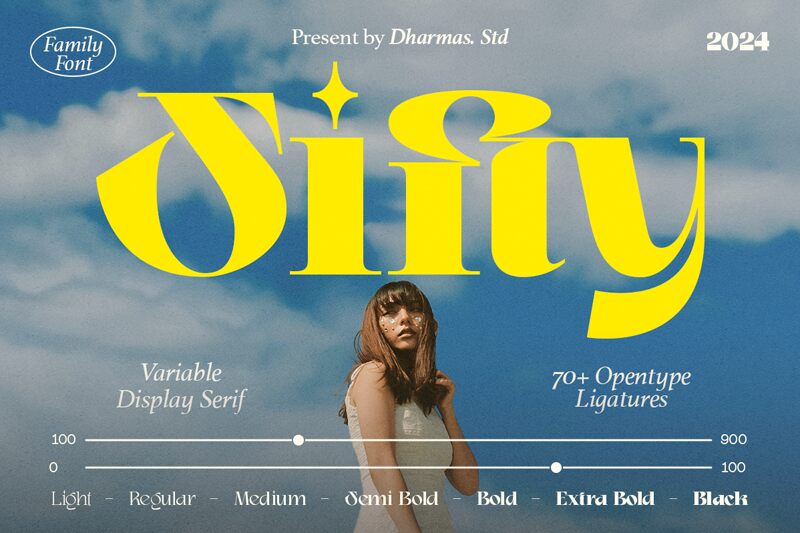
Sifty DEMO Black
The Sifty Black font, belonging to  the Sifty family designed by Dharmas Studio, is a strong retro typeface that mesmerizes both the eyes and thoughts. The widely distinctive outlines have an adequate stroke thickness that makes it dominant thus suitable for headlines, banners and logos where attention should be drawn.
Sifty Black has a pleasant nostalgic feel that reminds one of old fashioned signs. It looks modern unlike others in this style genre. This typeface is very solid, which means it can be used in advertising materials or brand designs that aim to convey a sense of lightheartedness or retro chic.
As an all-purpose font for visual storytelling, Sifty Black has found its place in lively promotion campaigns as well as classic-themed designs.